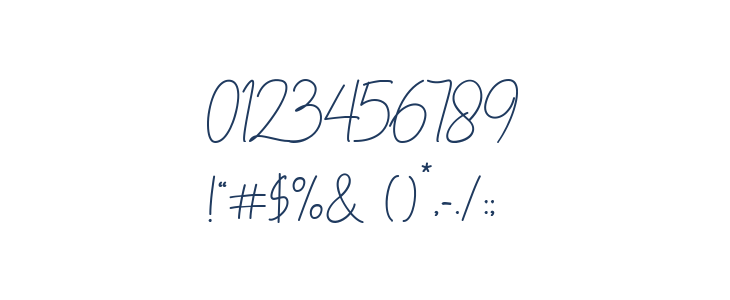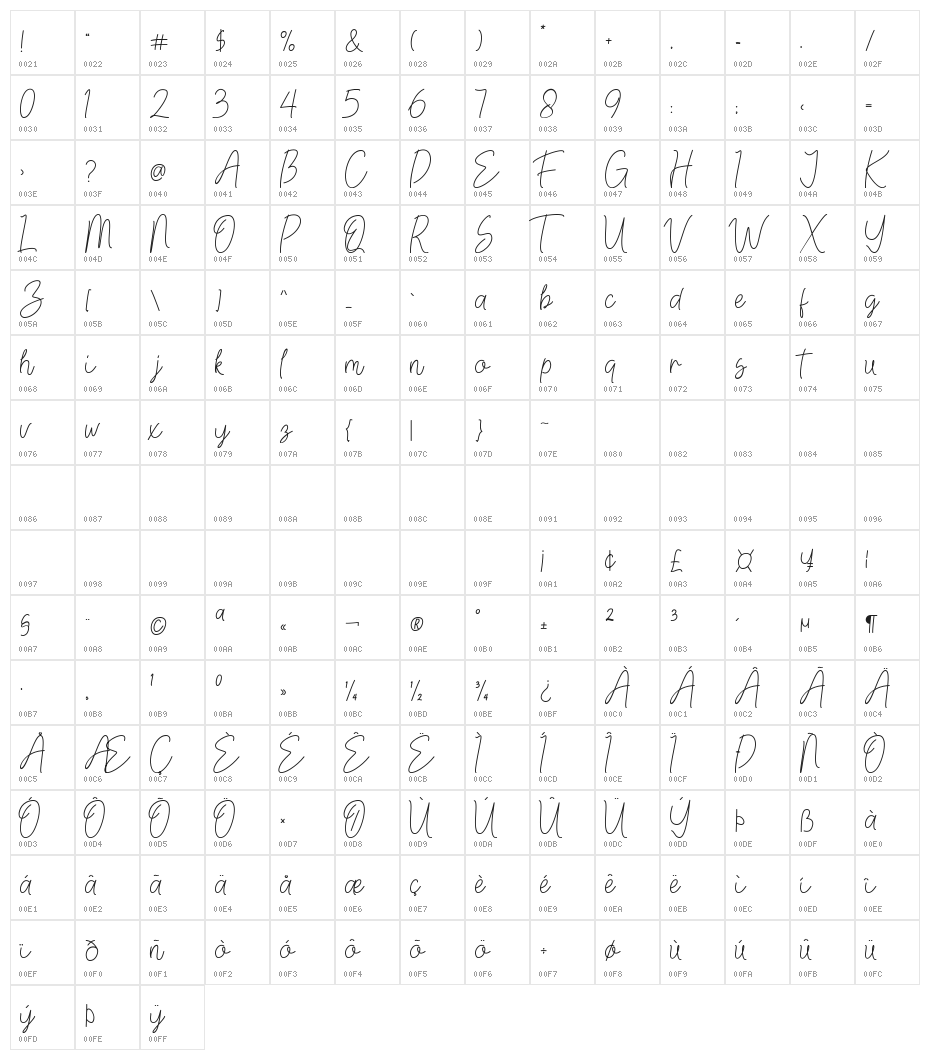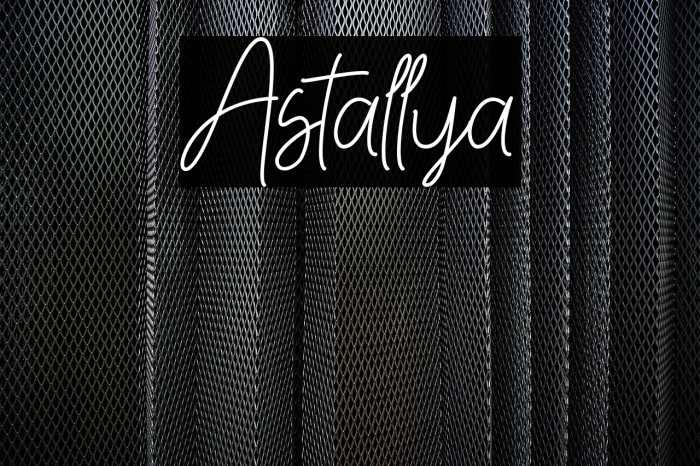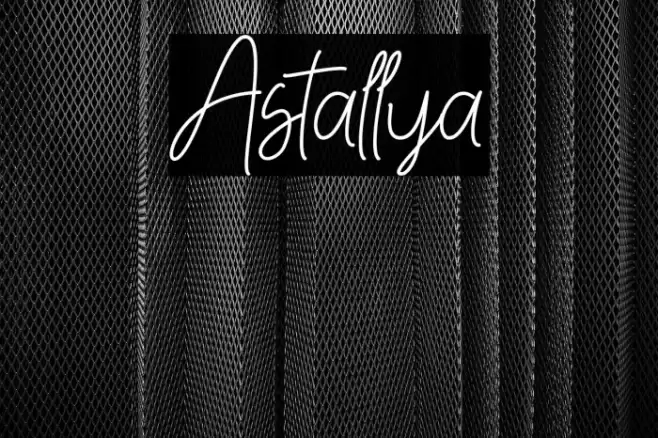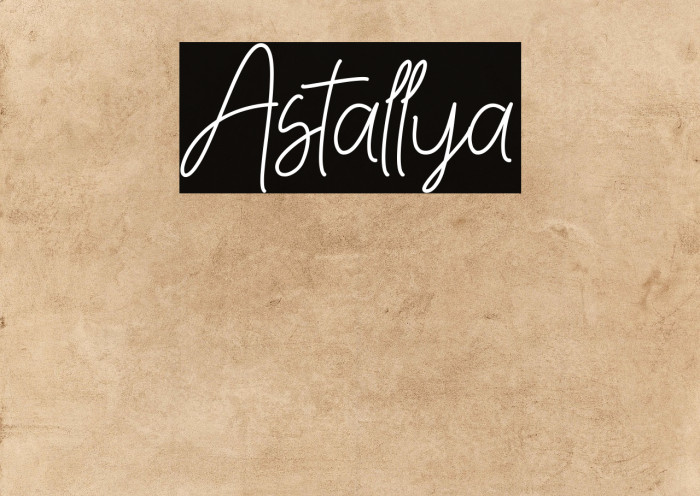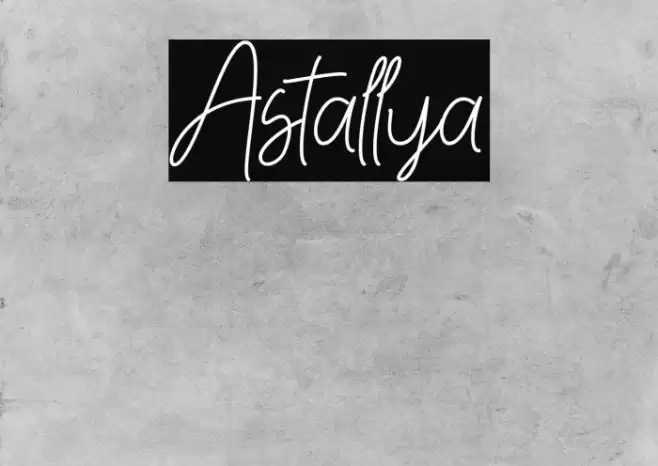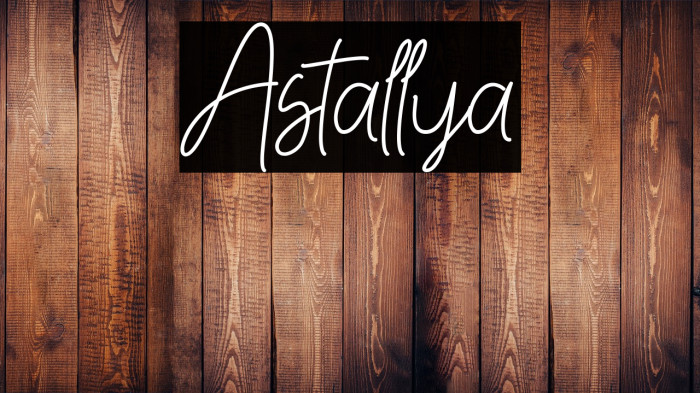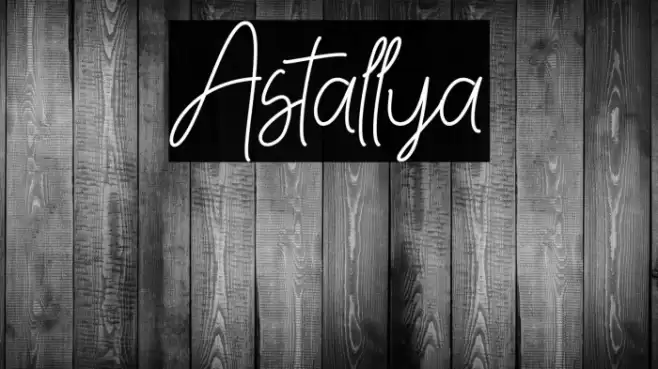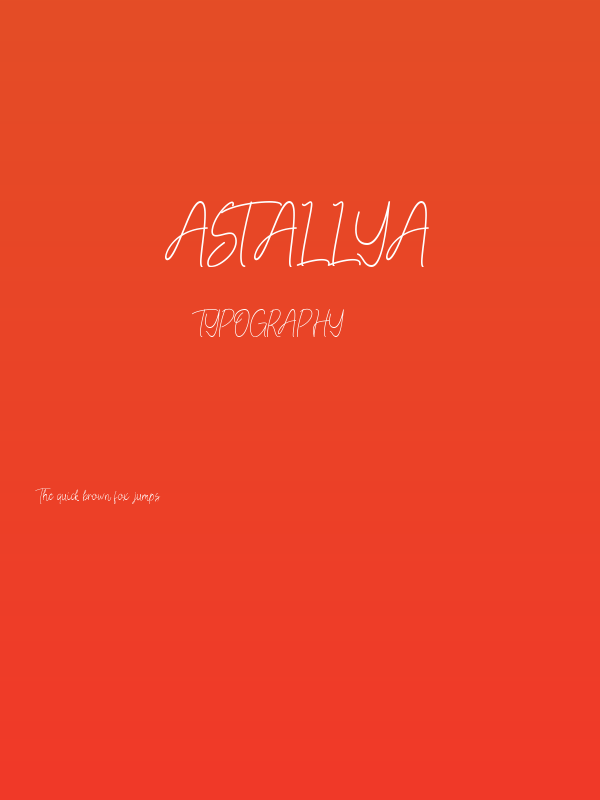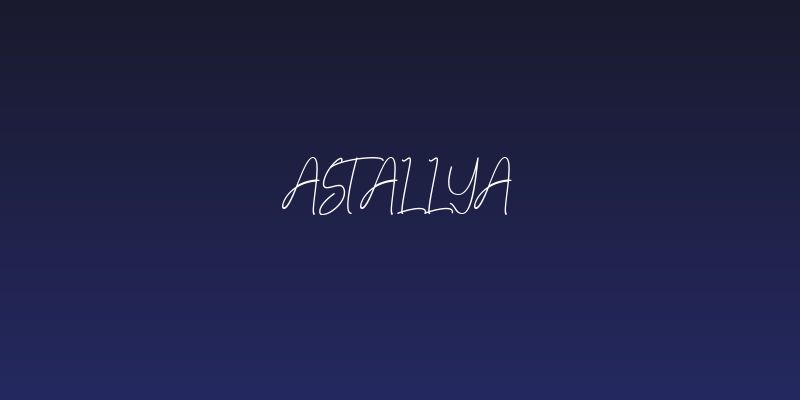
Astallya Font
Astallya Description
This font features a lively and fluid handwritten style, characterized by its elegant and flowing letterforms. Each character is crafted with a sense of motion, giving the text a dynamic and personal touch. The strokes are smooth and consistent, with a slight variation in thickness that adds to the natural handwriting feel. The uppercase letters are tall and slender, while the lowercase letters maintain a balanced and cohesive appearance. Numbers and special characters are designed to complement the overall aesthetic, making this font versatile for various design needs.